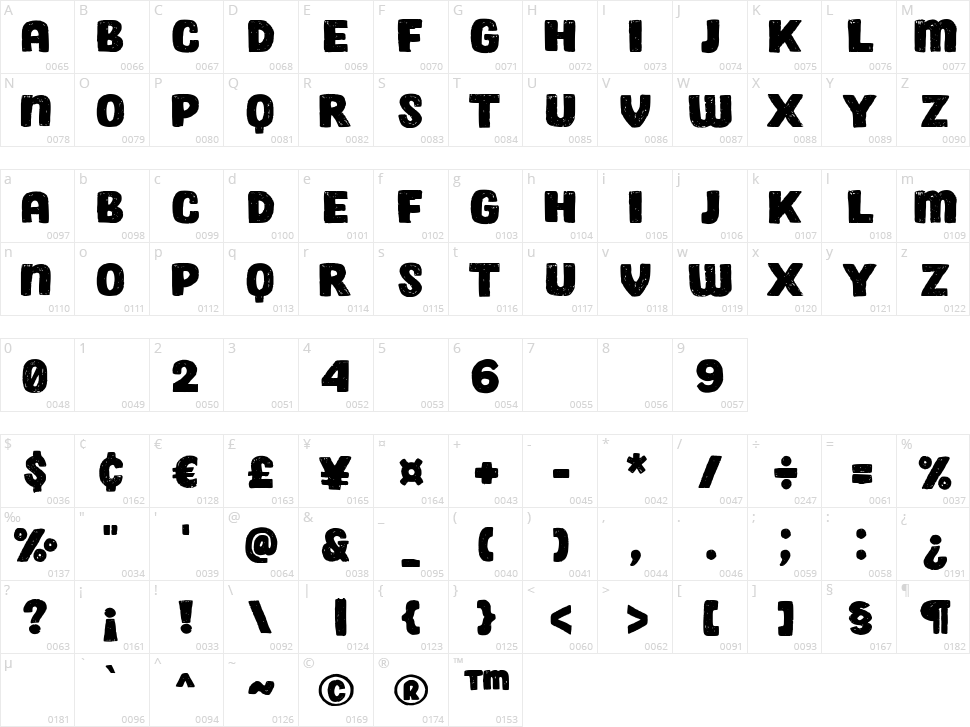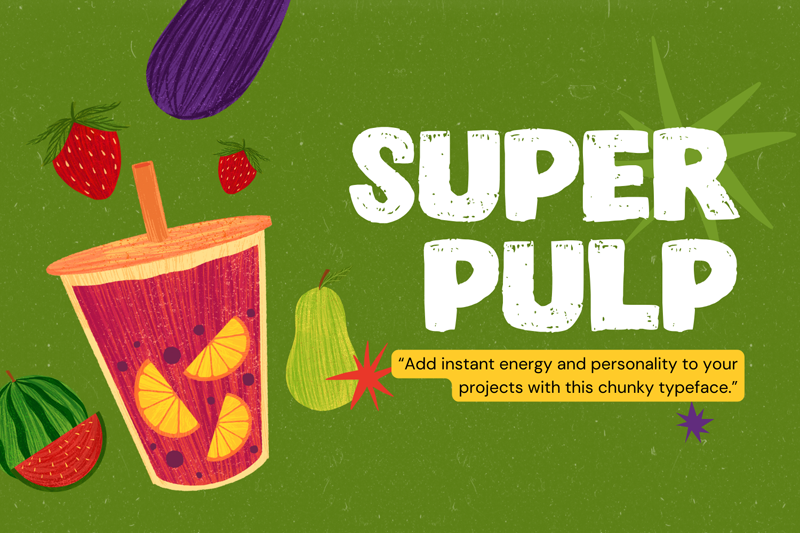
Unleash the Energy: Introducing Super Pulp
Super Pulp isn't your average font. It's a bold statement waiting to be made. This chunky typeface explodes with textured energy, perfect for grabbing attention and injecting vibrancy into your designs.